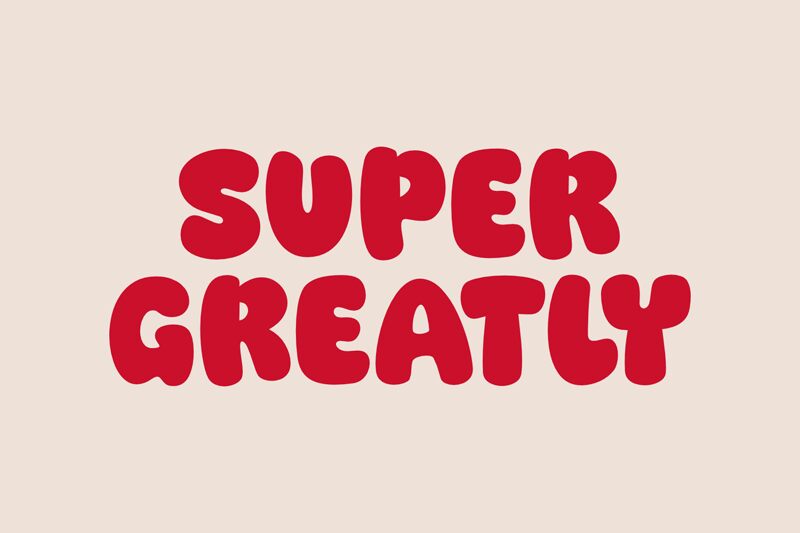
Super Greatly font by fsuarez913 is a fun and vibrant cartoon typeface designed to bring a youthful, energetic flair to your projects. Its friendly and cheerful appearance is perfect for capturing the essence of playfulness and joy. With a bold presence and retro-inspired style, this free font is an excellent tool for creatives seeking to add a touch of whimsy and personality to their designs.
This typeface is best suited for a variety of informal communications, including advertising, packaging, apps, kid-focused content, greeting cards, posters, social media graphics, branding, educational materials, and playful website designs.